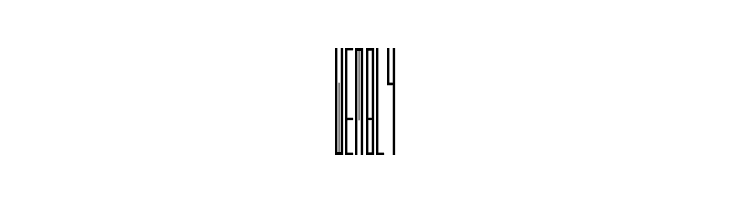
iCiel Gotham Ultra Font
A bold, geometric sans-serif font with a modern and clean design.
Asap SemiBold Font
A modern, semi-bold sans-serif font with rounded edges and uniform stroke width.
LOL! Font
A playful, hand-drawn font with bold, rounded characters and a whimsical style.
Gobold Extra2 Font